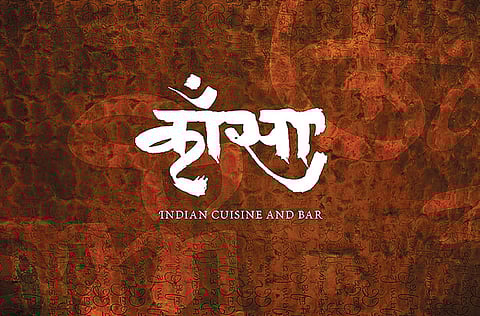
Vocal Fonts
Before typography was known to the world, letters were strewn together to create ‘readable’ words. The practice gradually evolved to make letters mean more than what they just seemed to be. Then came typography that perfectly put together letters, colours and images to help the words reach minds faster. Vishal Bajpai, a communication designer, employs this technique and attempts to create beautiful pictures out of each letter and make them speak like a thousand words.
Vocal Fonts - Vishal Bajpai